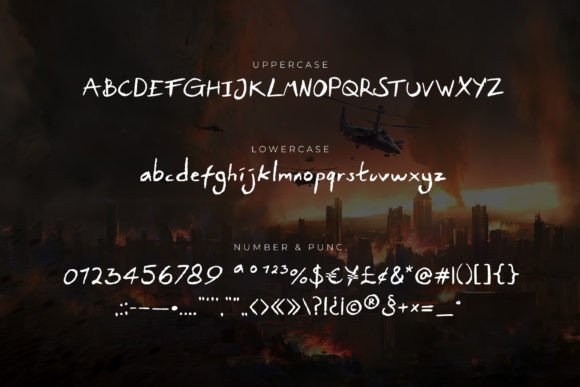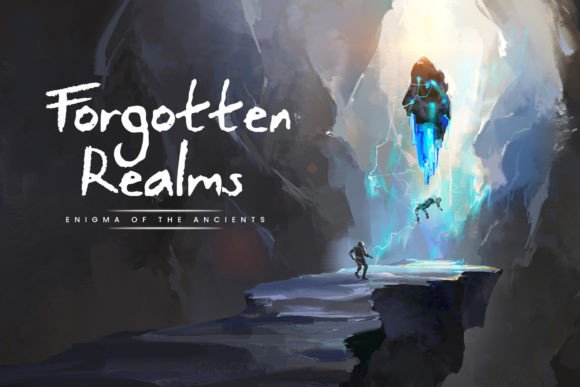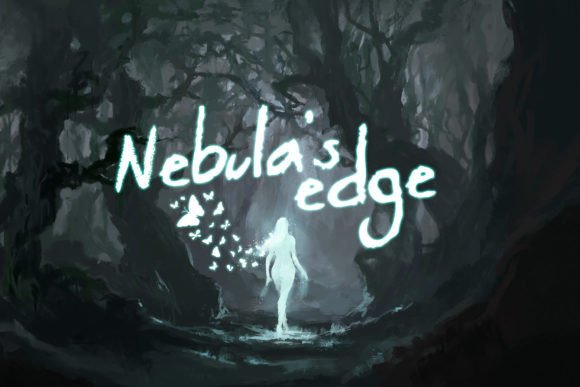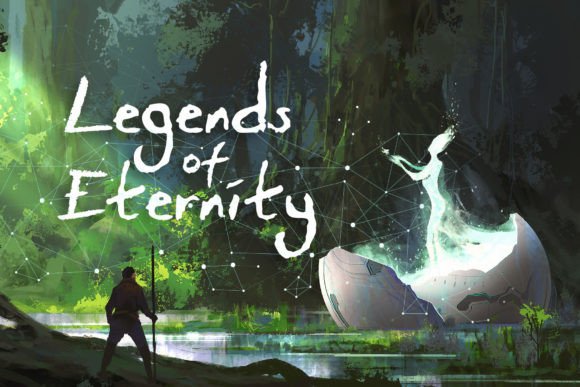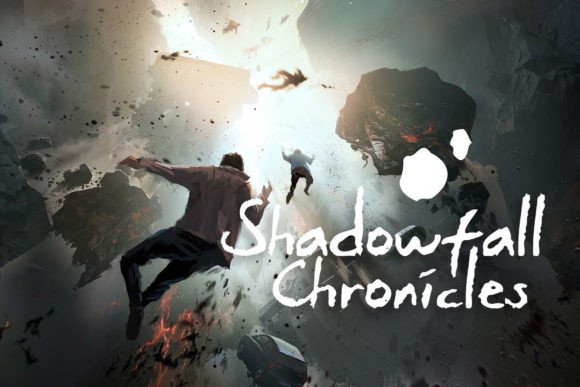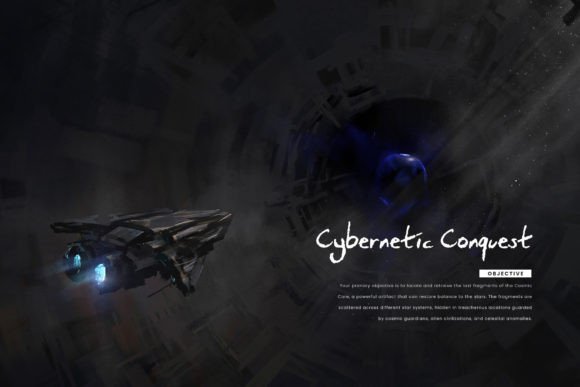
The Nostalgic Charm of Chalker Dust Font
I’ll never forget the design project that led me to discover Chalker Dust Font. I was working on a whimsical branding campaign for a local art studio, and I needed a font that would evoke the feeling of childhood creativity and playfulness. As I scoured the internet for the perfect font, I stumbled upon Chalker Dust, and it was love at first sight! ✨
With its authentic texture and playful irregularities, Chalker Dust instantly transported me to a world of chalkboard art and doodles. Each letter has a handmade charm, as if it was lovingly written with a piece of chalk. I knew right then and there that this font was exactly what I needed to bring my client’s vision to life.
An Honest Review of Chalker Dust Font
- ✨ Authentic texture: Chalker Dust has a wonderful, organic feel that makes it perfect for creating nostalgic and playful designs.
- ✅ Handmade charm: Each letter is uniquely crafted, giving your designs a personal touch that’s hard to achieve with more uniform fonts.
- 🎨 Versatility: Chalker Dust works beautifully for a wide range of design projects, from branding and packaging to social media graphics and invitations.
While Chalker Dust is an amazing font, there are a few things to keep in mind: 🤔
- ⚠️ Legibility at small sizes: Like many handwritten fonts, Chalker Dust can be a bit tricky to read at very small sizes. It’s best used at larger sizes where its charm can shine.
- ⚠️ Limited formal applications: Due to its playful nature, Chalker Dust might not be the best fit for more formal or corporate design projects.
The Story Behind Chalker Dust Font
While the exact origins of Chalker Dust are unclear, it’s easy to imagine a designer inspired by the chalkboard art of their childhood. Perhaps they spent hours doodling in school, creating colorful masterpieces with nothing but a piece of chalk. This font is a love letter to those carefree days, bringing a touch of whimsy and playfulness to any design project.
Q: Is Chalker Dust suitable for body text?
A: While Chalker Dust is beautiful, it’s best used for headings or short paragraphs due to its playful, handwritten nature. For longer body text, a more traditional font might be easier to read.